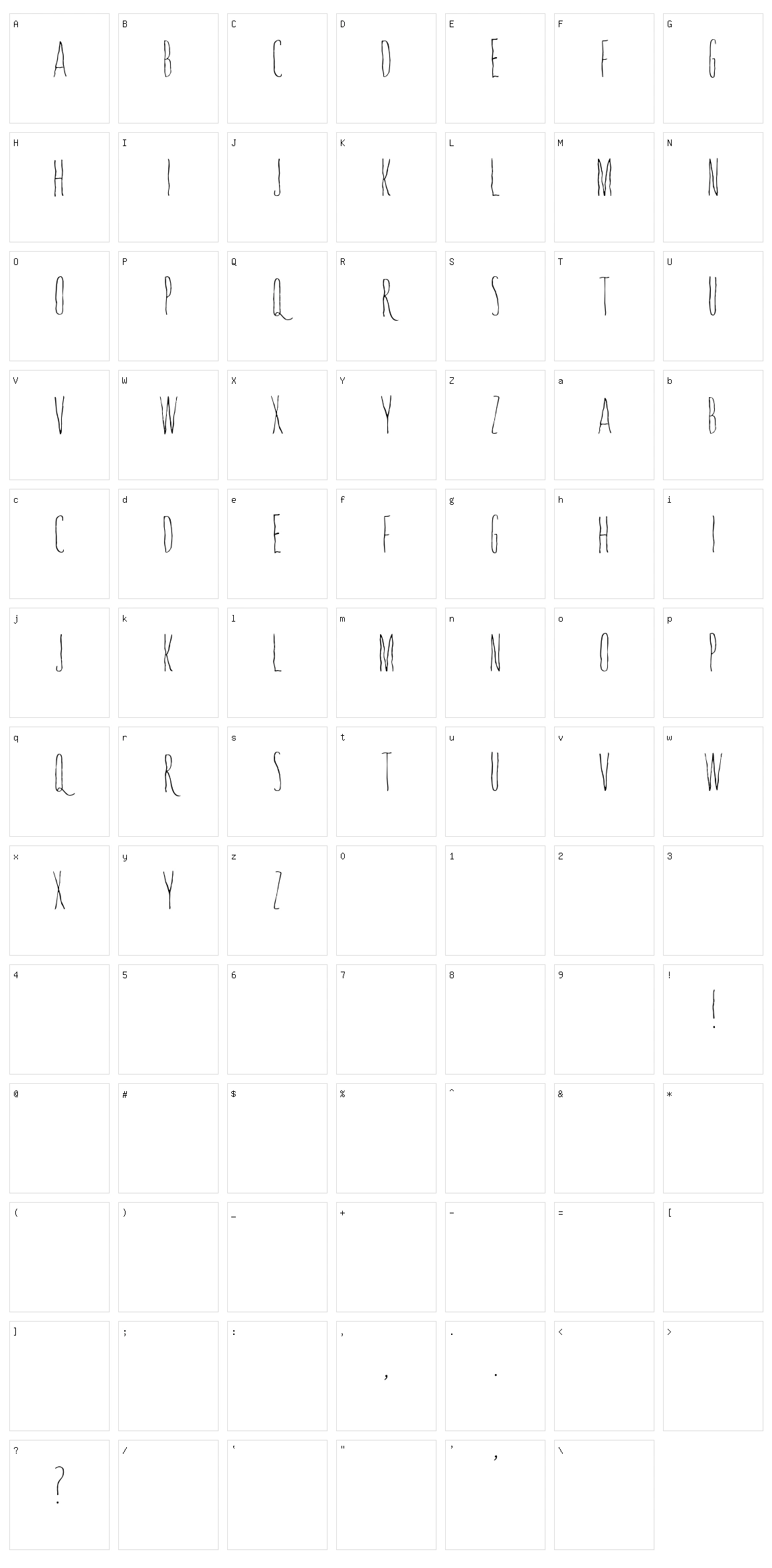
The free font Whisperings is carefully designed by Skyhaven Fonts, showcasing a thoughtful balance of creativity and usability and falls under the Script font style. When you download the ZIP file, it contains only 10.22 KB of font files, making it lightweight and quick to download. Please review the license details below to understand permitted usage and distribution rights. If license information is not available, we recommend using this font for personal projects only or contacting the author directly for commercial usage permissions.